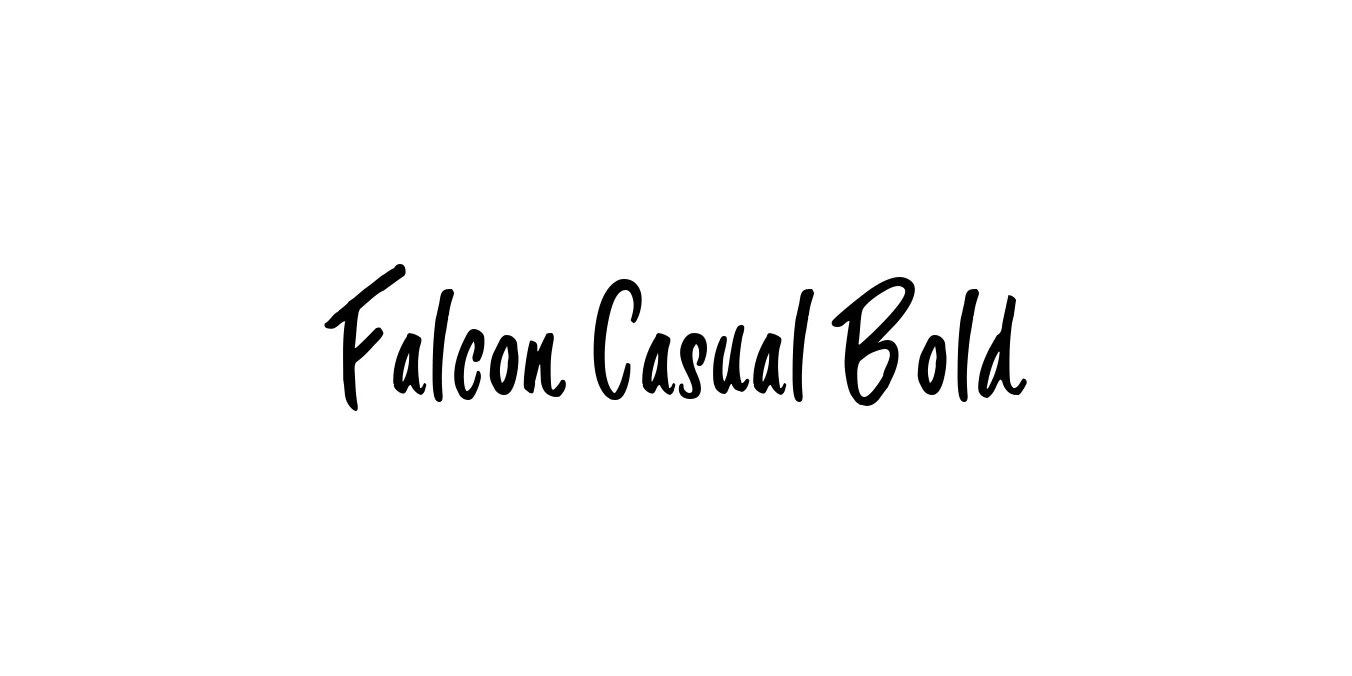
Falcon Casual Bold
Designed by Svetlana Akifyeva
Falcon Casual Bold is a contemporary script typeface that balances the spontaneity of hand-drawn lettering with the precision of modern digital typography. Designed by Svetlana Akifyeva, this specific weight stands out for its fluid strokes and relaxed, yet assertive personality. The Bold variant emphasizes the thickness of the brush paths, making it highly legible and visually striking for headline and display purposes.
Historically, the Falcon family was developed to bridge the gap between formal calligraphic scripts and messy, informal handwriting. It features a distinct rhythmic flow and slightly slanted characters that evoke a sense of speed and casual elegance. This makes Falcon Casual Bold an excellent choice for modern branding projects, retail signage, and packaging where a personal, energetic touch is required without sacrificing professional readability.
Falcon Casual Bold Best Uses
Perfect for logos that require a personal, energetic, and approachable human touch.
Ideal for food and beverage labels where a handcrafted or artisanal look is desired.
Great for high-contrast quotes and eye-catching post headers that need to pop.
Effective in print ads and promotional materials for its bold, legible script style.